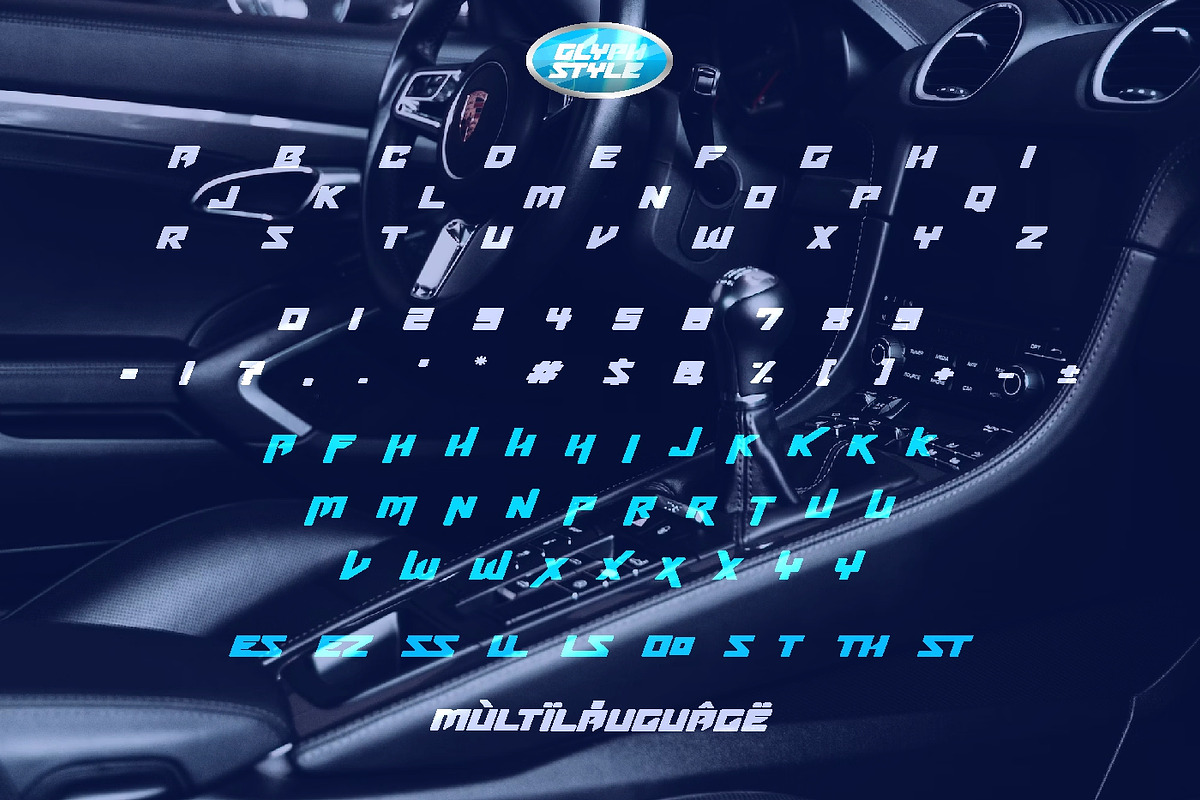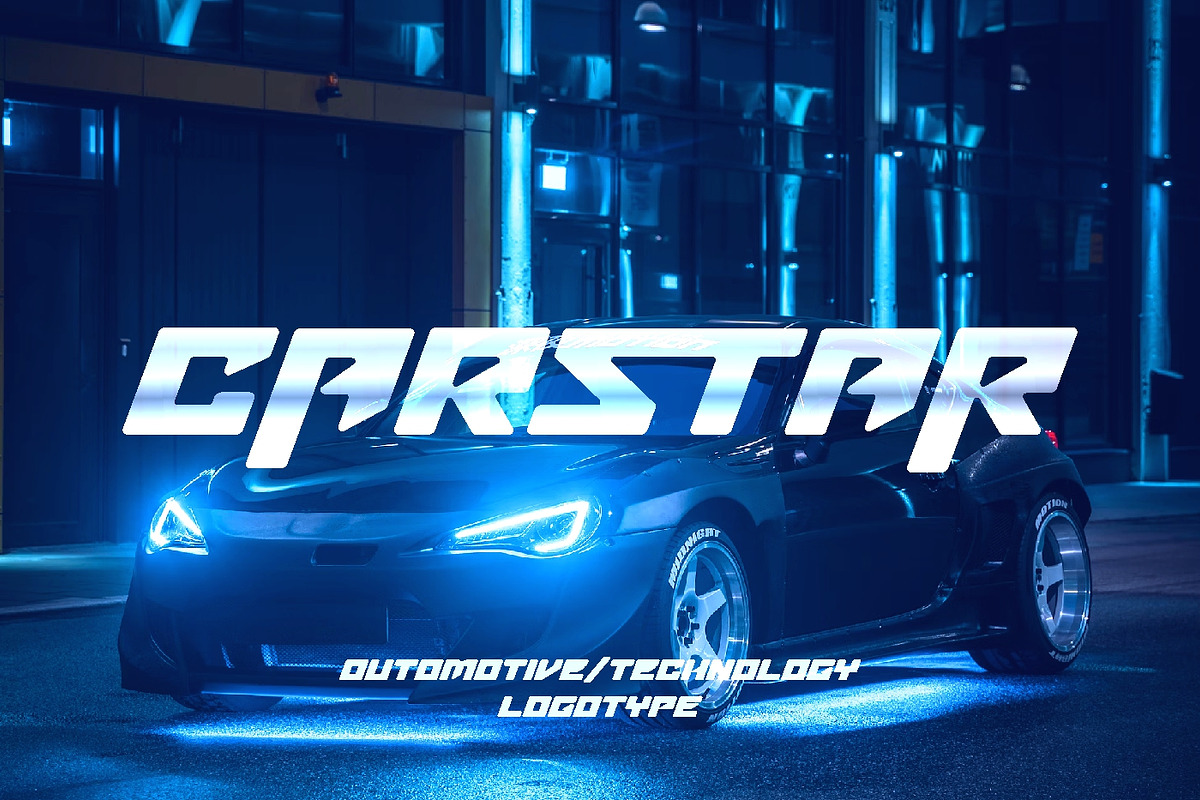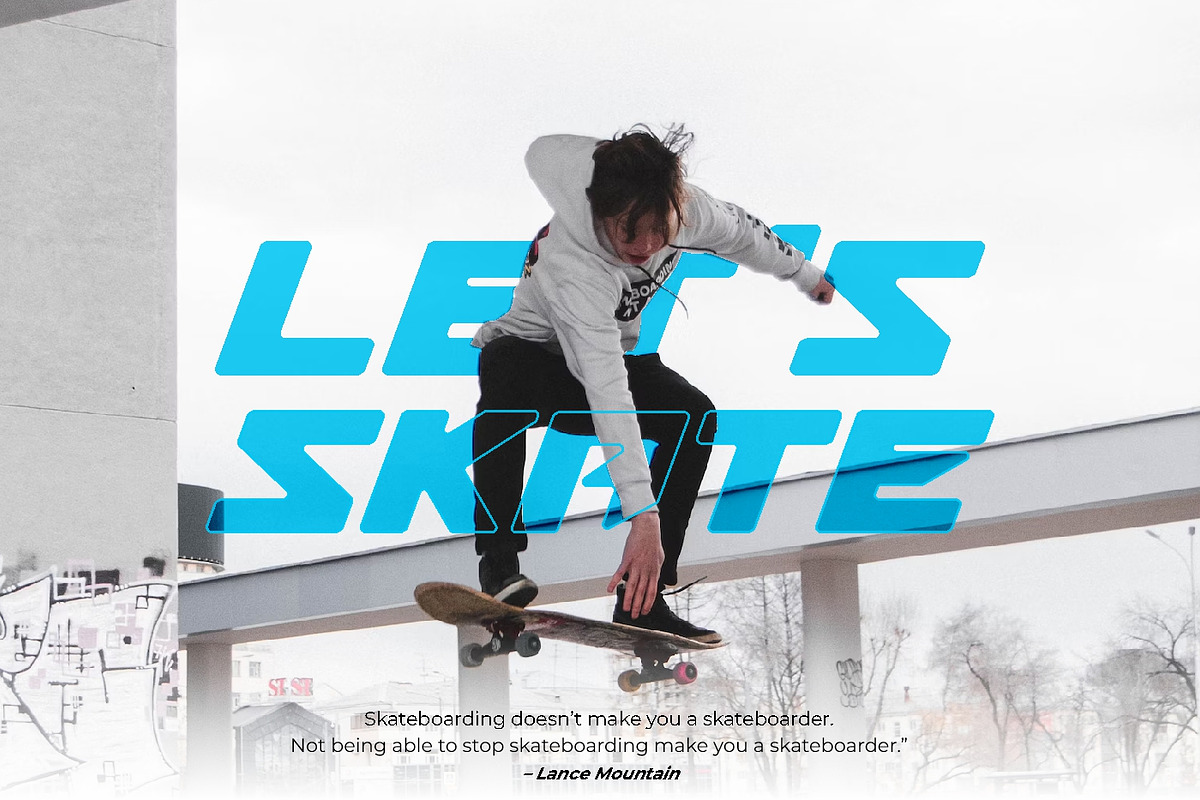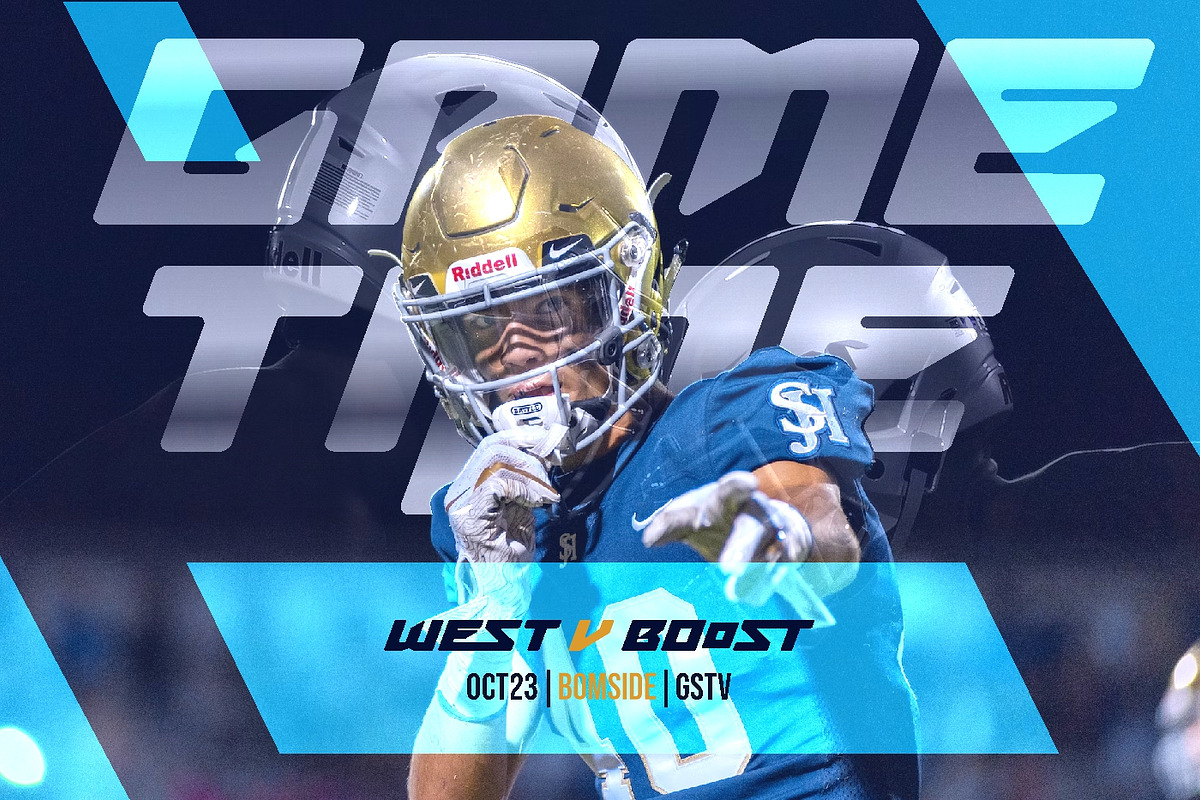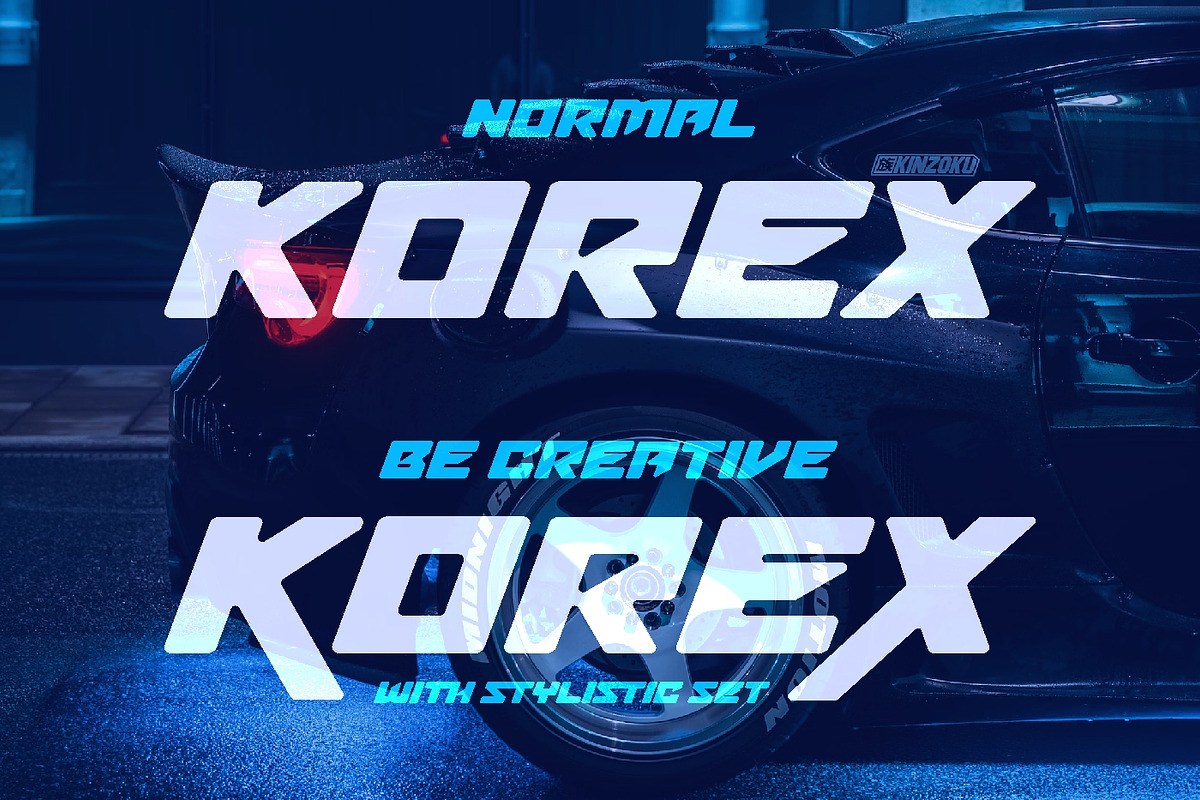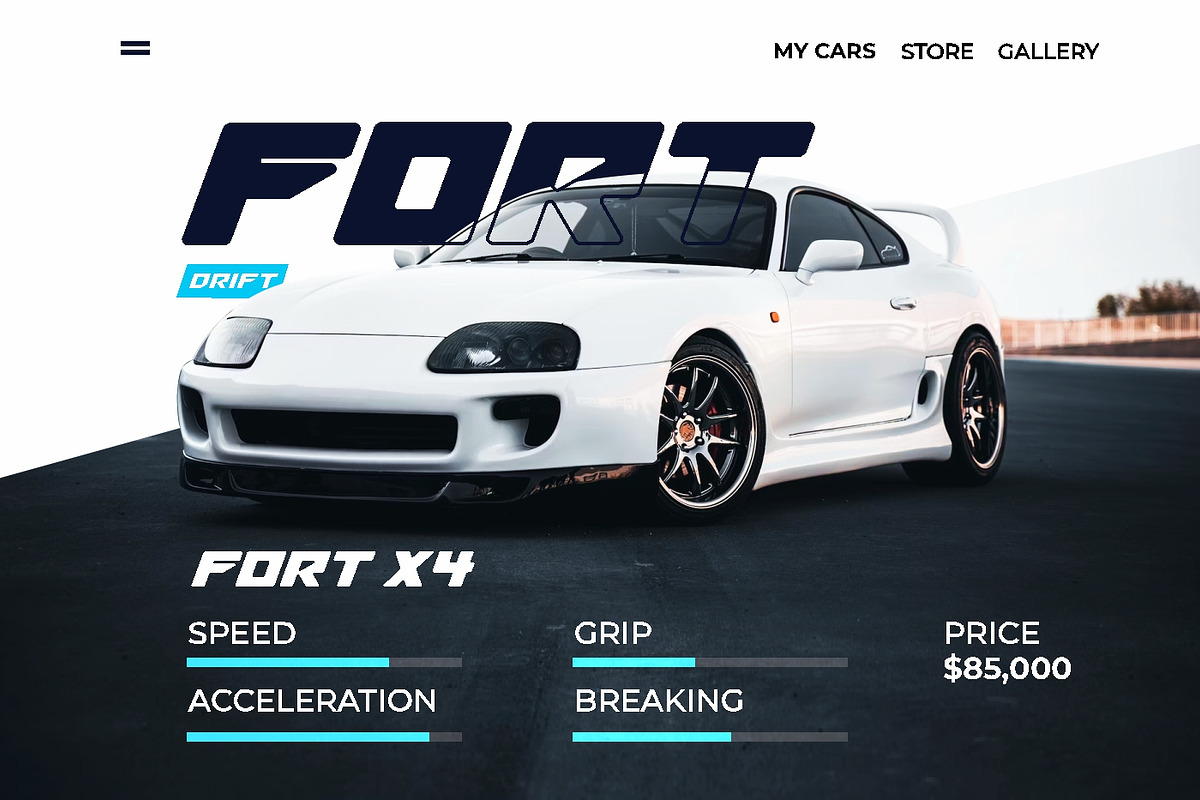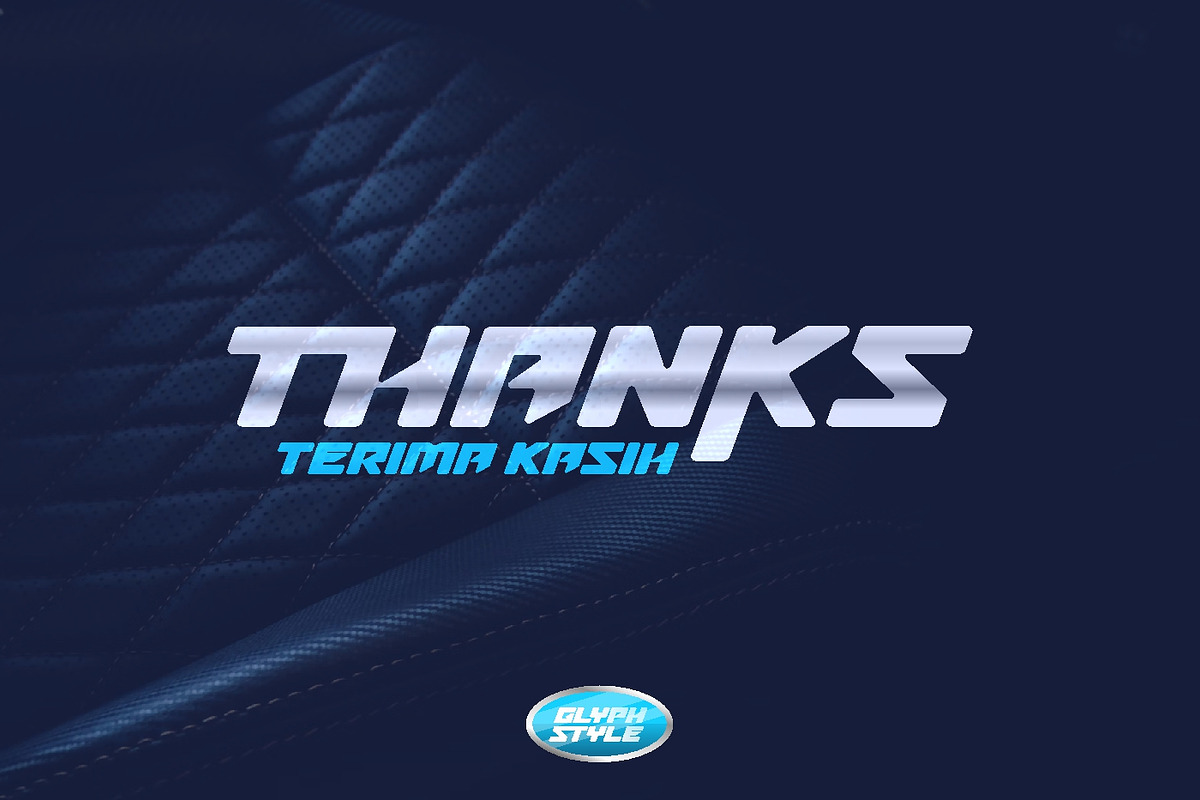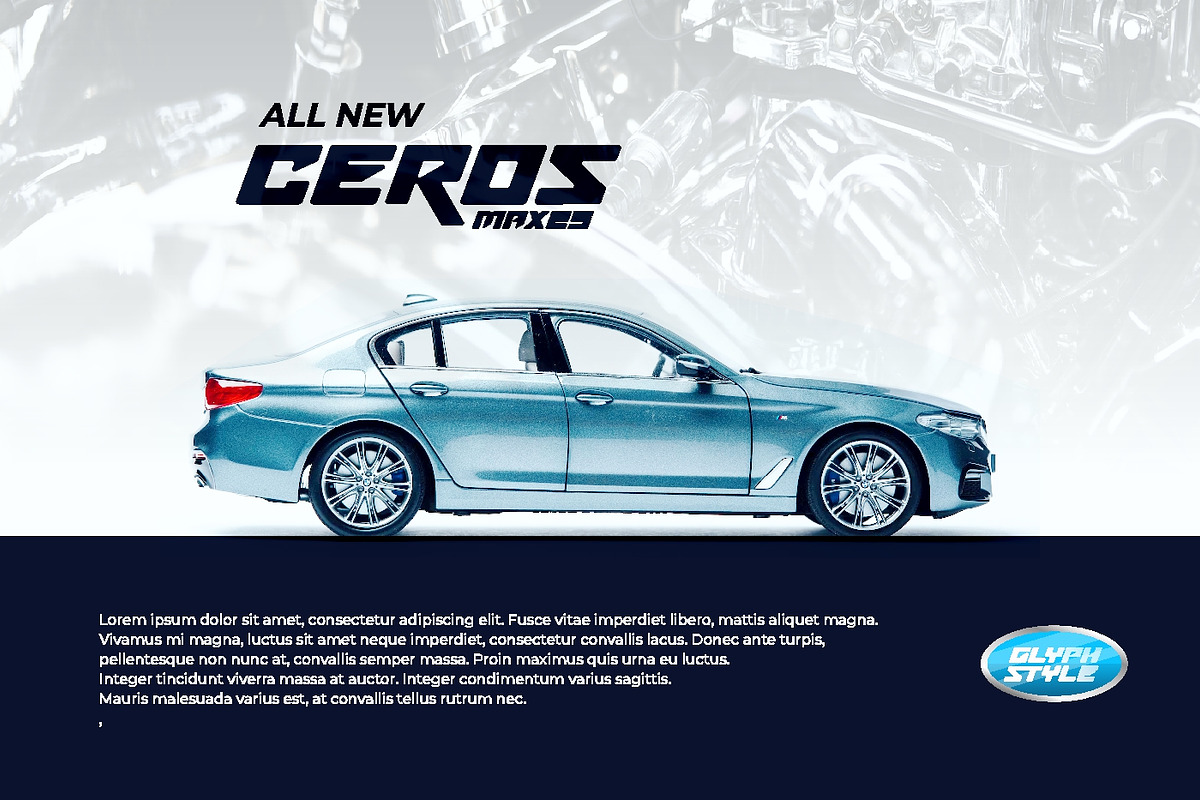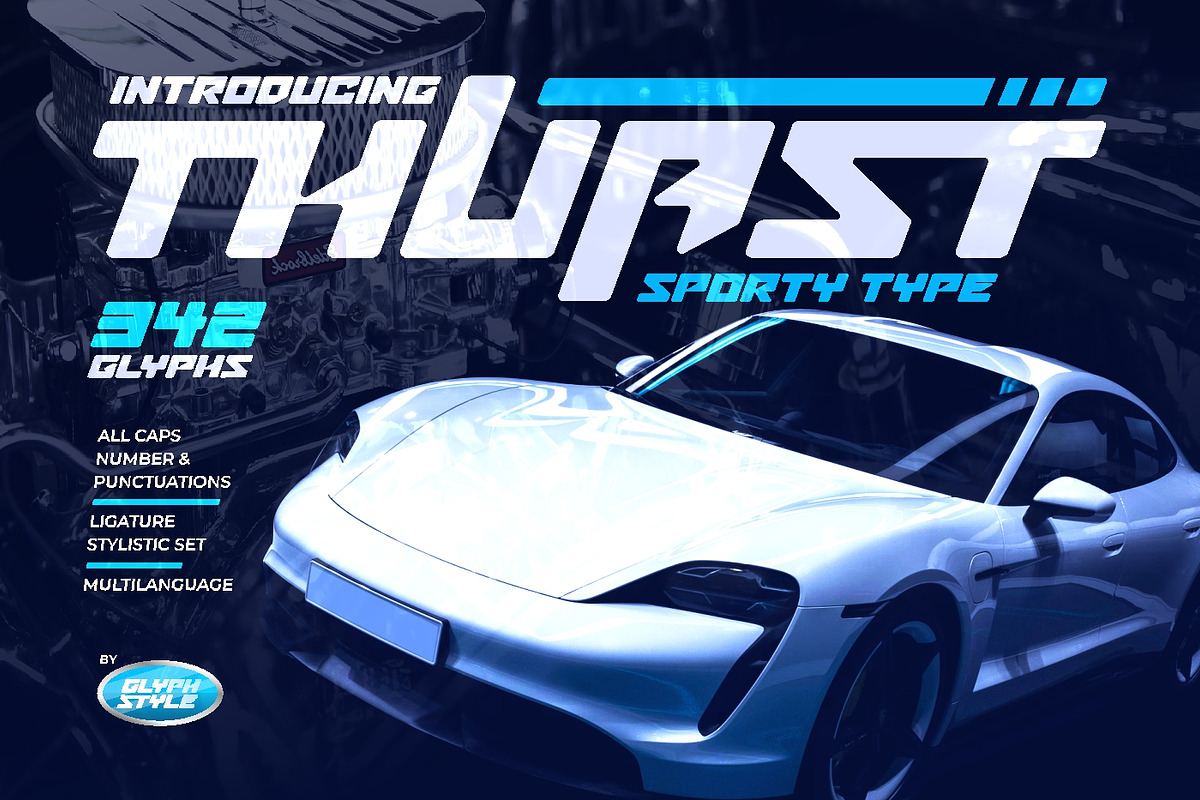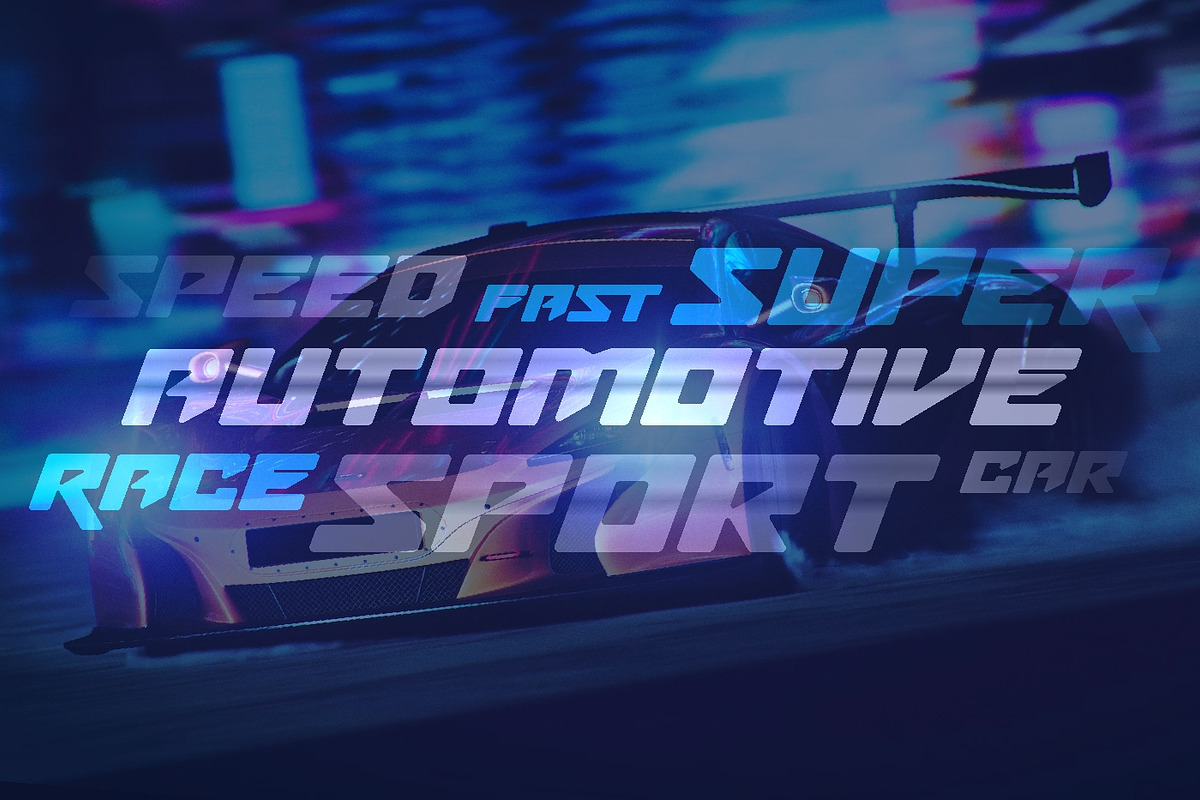
Thuast Sporty
Thuast is a sports and speed themed display font. The letters in bold and italics describe speed. Equipped with stylistic options to enrich your creativity.
Thuast is perfect for branding projects, logos, wedding designs, social media posts, advertisements, product packaging, product designs, labels, photography, watermarks, invitations, stationery and any project that requires a font with sport and speed theme.